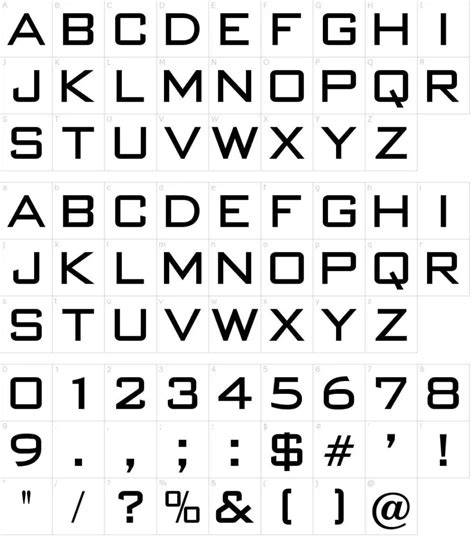
Best Bank Fonts For 2023
What are Bank Fonts?
Bank Fonts are a type of font specifically designed for use in the banking and financial sectors. They are designed to be highly legible, professional, and easy to read. Bank fonts are often used in financial documents, such as bank statements, and are used to convey a sense of trustworthiness and security. Bank fonts are often a combination of both serif and sans serif font styles, which provides a more contemporary and modern look. Bank fonts are often used by banks and other financial institutions to ensure that documents are easily understood and read by customers.
Why are Bank Fonts Important?
Bank fonts are important as they help to create a sense of trustworthiness and professionalism when used in financial documents. Bank fonts are designed to be highly legible, which helps to ensure that customers understand the information presented to them. Bank fonts also help to create a feeling of security, as customers are more likely to trust documents that use a font specifically designed for the banking sector. Furthermore, bank fonts are often a combination of serif and sans serif fonts, which provides a modern and contemporary look and makes documents more aesthetically pleasing.
What are the Best Bank Fonts for 2023?
In 2023, the best bank fonts are those that provide legibility, readability, and a modern look. Some of the best bank fonts for 2023 include:
- Avenir
- Futura
- Gotham
- Neo Sans
- Proxima Nova
- Open Sans
These fonts are highly legible, easy to read, and provide a modern look that customers and financial institutions alike can appreciate.
Bank fonts are an important part of the financial sector, as they help to convey a sense of trustworthiness and security. Bank fonts are designed to be highly legible and easy to read, which helps customers understand the information presented to them. In 2023, some of the best bank fonts include Avenir, Futura, Gotham, Neo Sans, Proxima Nova, and Open Sans. These fonts are highly legible, easy to read, and provide a modern look that customers and financial institutions alike can appreciate.